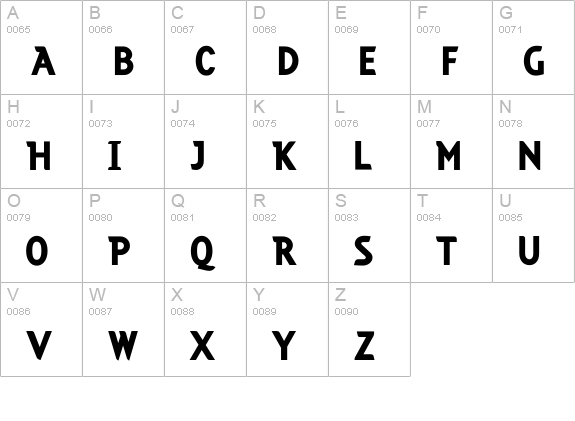
Cuban-Bold is a strong, high-contrast variant in the Cuban typeface family \xE2\x80\x94 well suited to headlines, attention-grabbing titles, and strong calls-to-action.
Cuban-Bold font is a stunning display typeface that exudes boldness and elegance. Its strong, clean lines and bold strokes make it perfect for creating eye-catching headlines and titles. With its classic yet modern design, Cuban-Bold font adds a touch of sophistication to any project. The best part? Cuban-Bold font is completely free to download at FontsMarket.com. Whether you're working on a graphic design project, creating a logo, or designing a poster, this versatile font is sure to make a statement. Don't miss out on the opportunity to enhance your designs with the striking Cuban-Bold font – download it for free today!